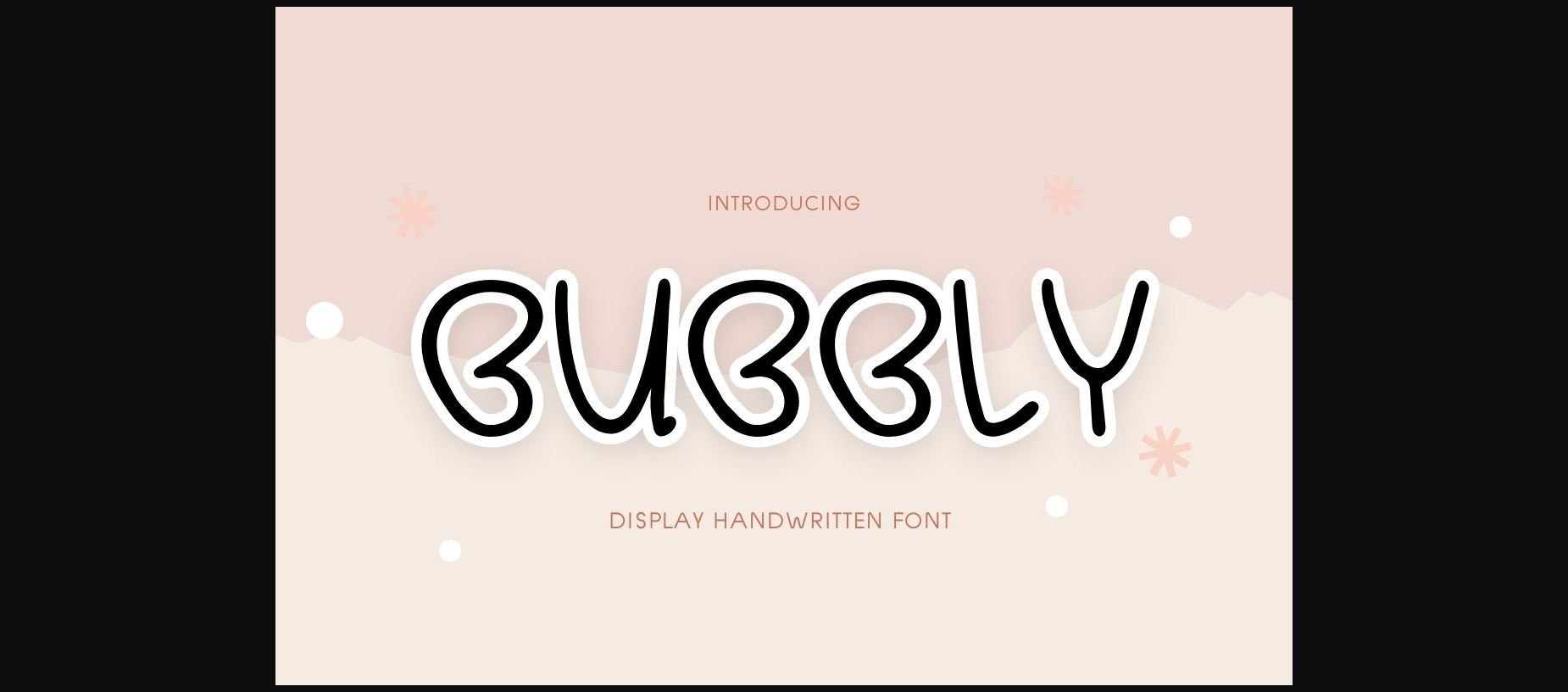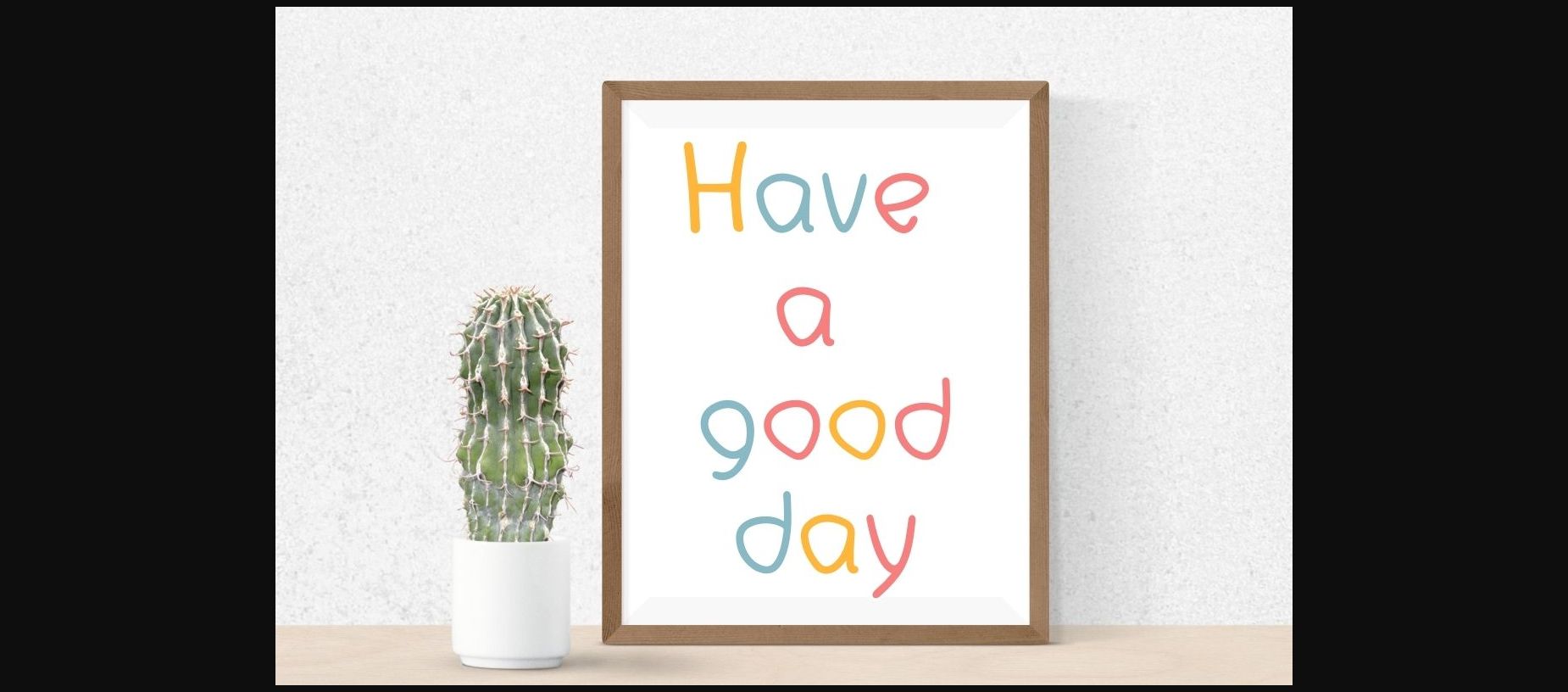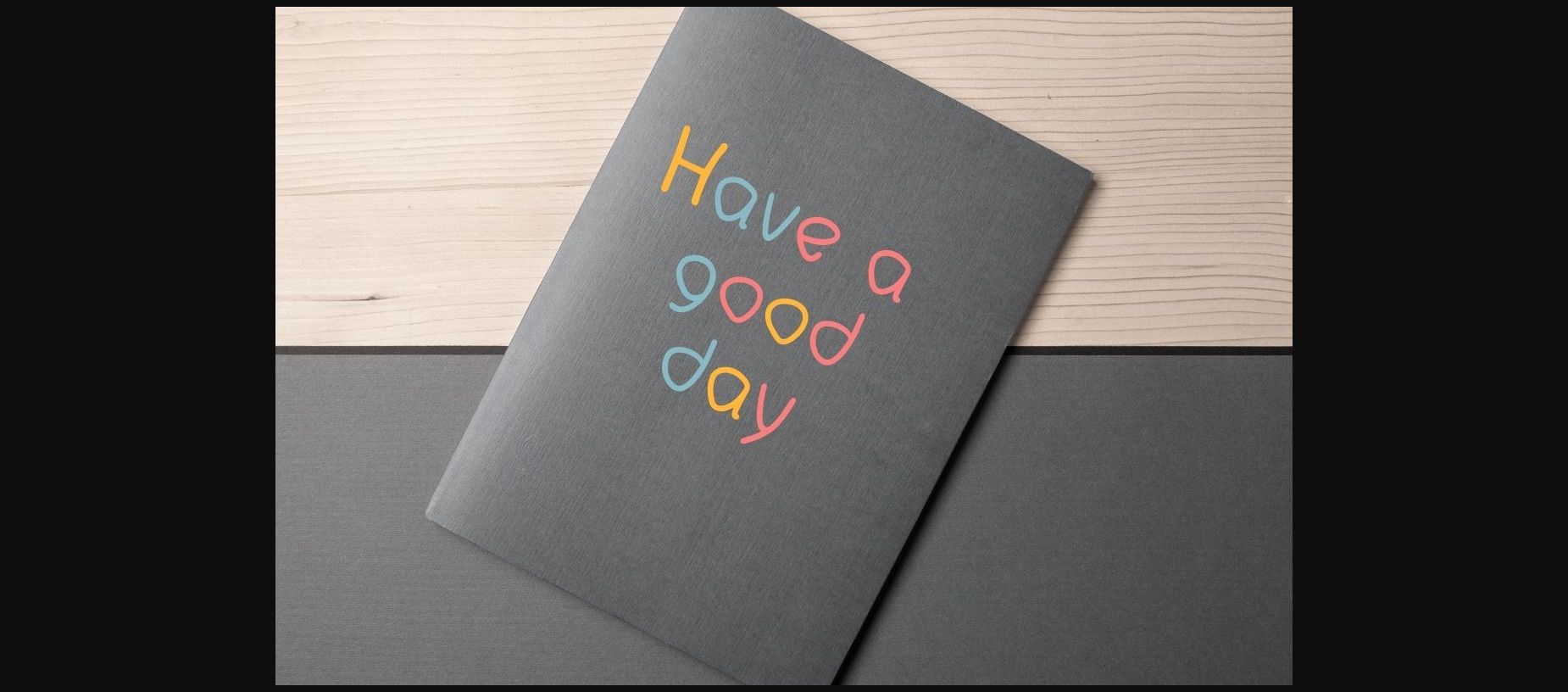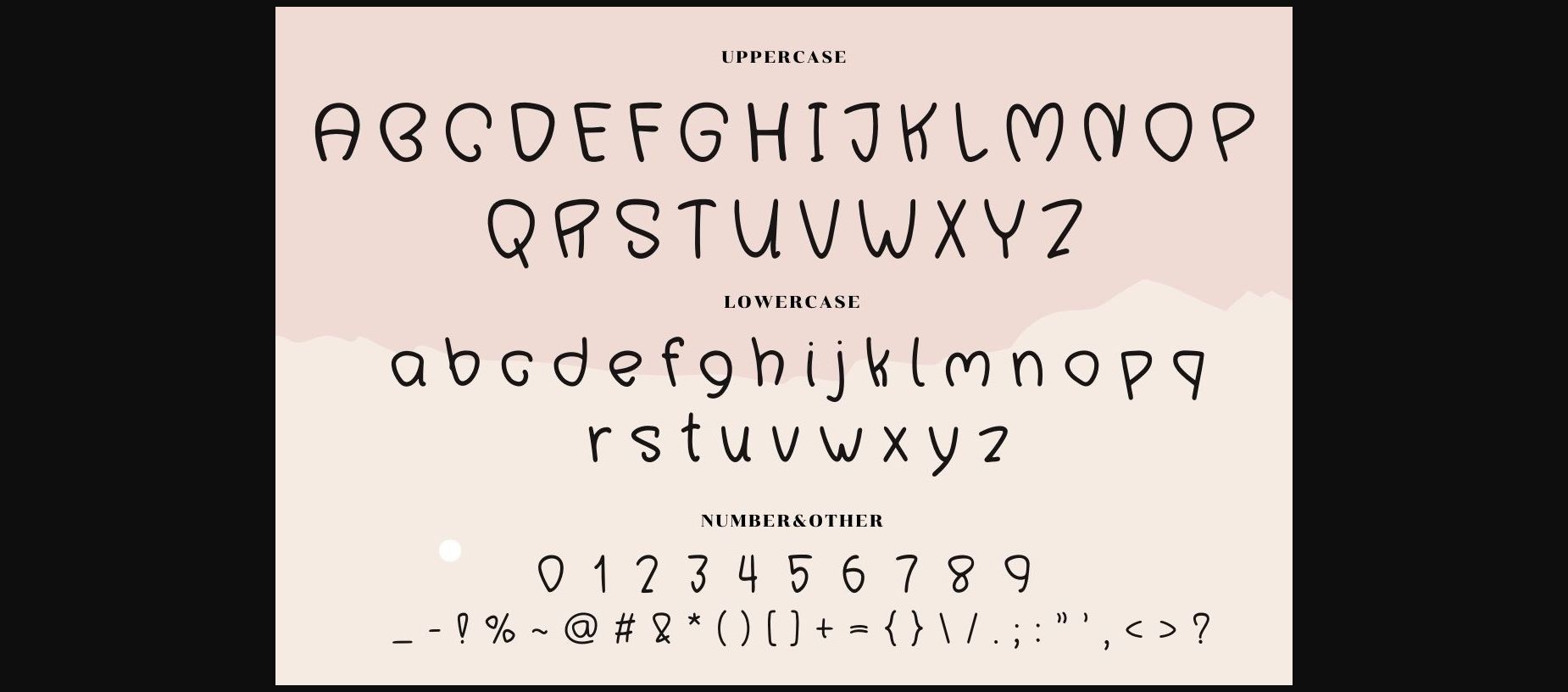
About Bubbly Font
BUBBLY is a charming display font with a groovy and fun vibe.
This font is specially designed for the funny theme, making it perfect for various designs that require a cute touch, including angel-themed designs, kids’ designs, birthday invitations, summer designs, t-shirt designs, crafting, stickers, sublimation, and more.